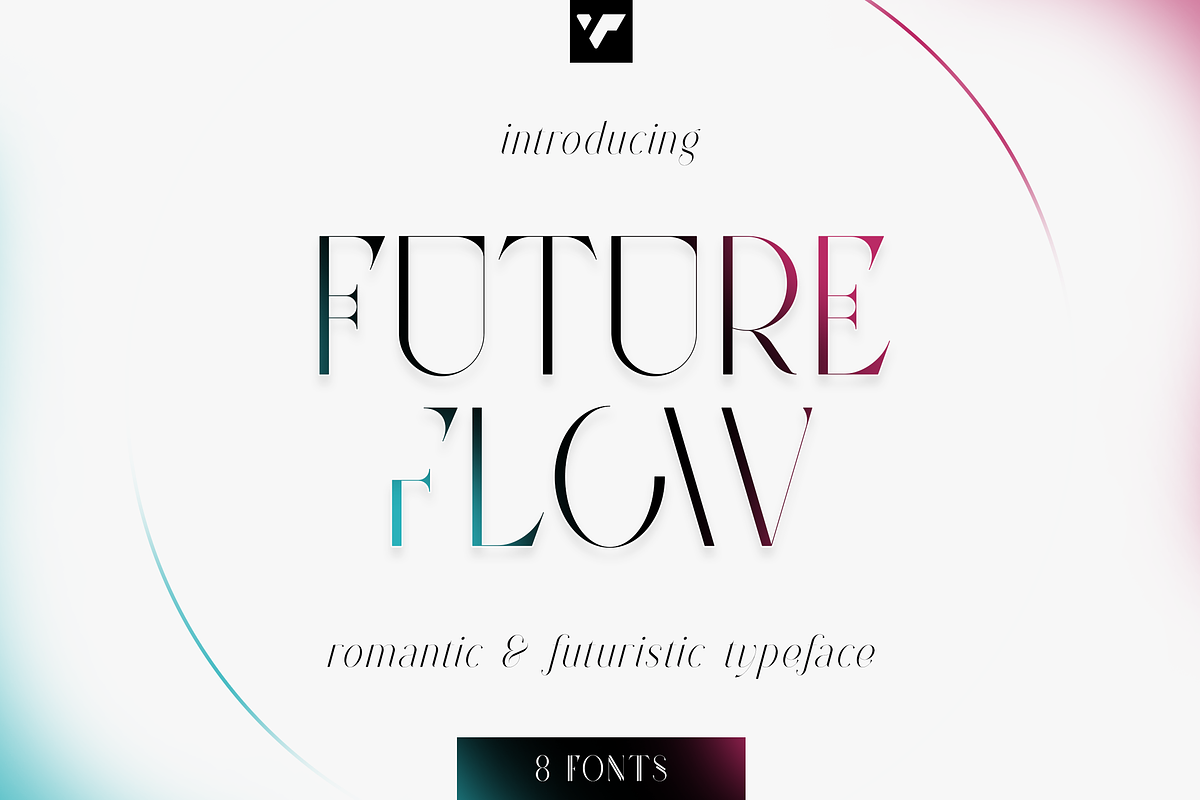
Future Flow Typeface - 8 Fonts Free Download is a sleek and versatile font family featuring 8 unique fonts designed to bring a futuristic, modern look to your creative projects. From sharp geometric forms to softer, more organic styles, Future Flow offers a wide range of choices for any design need, making it perfect for branding, editorial work, website designs, tech graphics, and high-impact advertising.
The family includes a variety of weights, italics, and display options, allowing for flexibility in typographic hierarchy and creative compositions. Whether you're designing for the tech industry, fashion, or any modern brand, Future Flow gives your projects a dynamic and forward-thinking appearance.